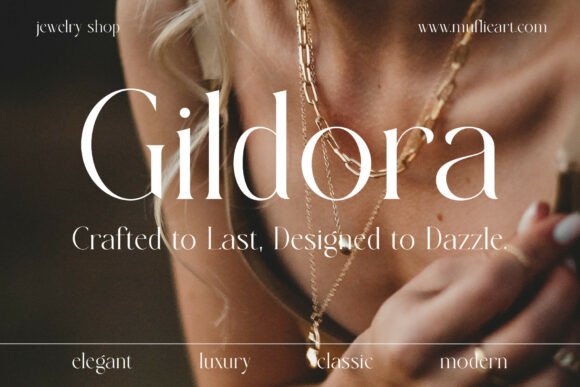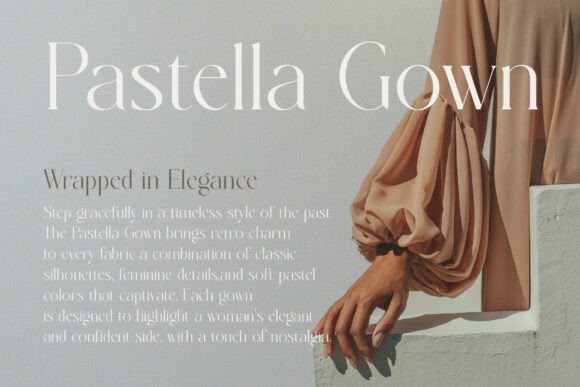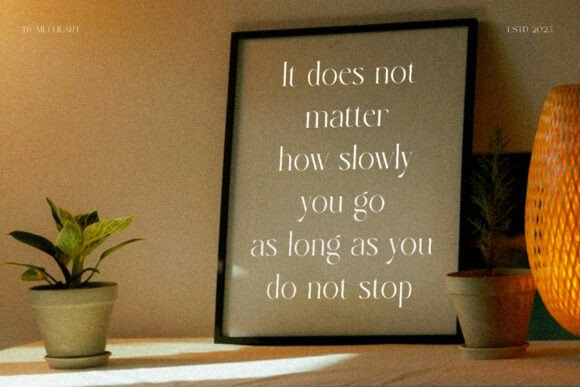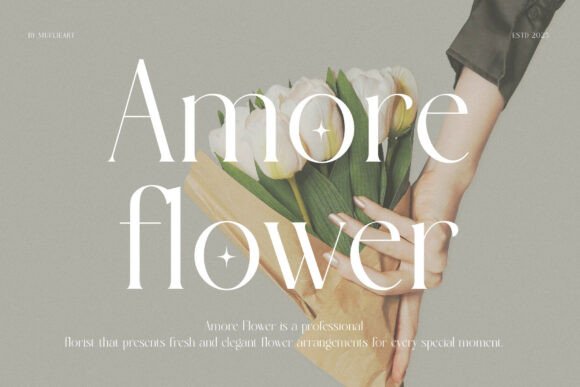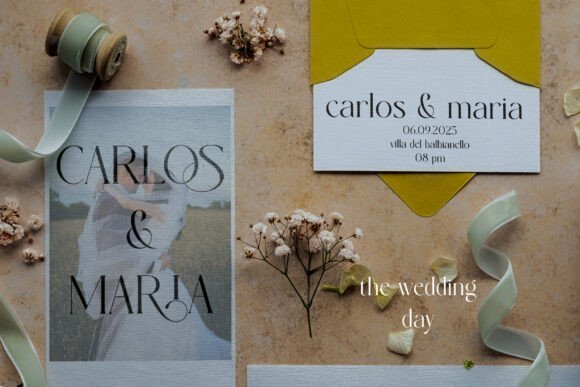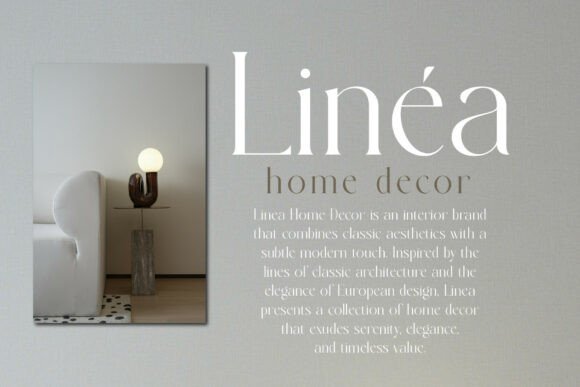
Introduction to Aslones Font
Define the peak of elegance with Aslones, a modern luxury serif meticulously crafted for the most prestigious design systems.
This font is a celebration of calligraphic grace, featuring slender, high-contrast letterforms that flow with effortless, rhythmic movement Its sophisticated character is heightened by stunningly long, sweeping swashes and intricate ligatures that dance across the baseline, creating a sense of fluid, high-end prestige.
Key Features of Aslones Font